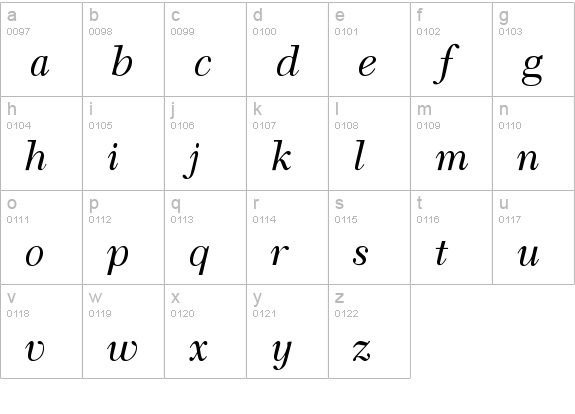
Caledonia* Italic is a distinctive, italic variant in the Caledonia* typeface family \xE2\x80\x94 well suited to design and typography projects.
Caledonia* Italic font is a stunning typeface that exudes elegance and sophistication. Its sleek, italicized design adds a touch of flair to any project, making it perfect for use in luxury branding, editorial design, and more. The fluid curves and precise angles of Caledonia* Italic make it a versatile choice for a wide range of design applications. What's even better is that Caledonia* Italic font is completely free to download at FontsMarket.com. This means you can enhance your projects with this beautiful font without any cost involved. Don't miss out on the opportunity to elevate your designs with the timeless appeal of Caledonia* Italic font. Download it today and let your creativity soar.